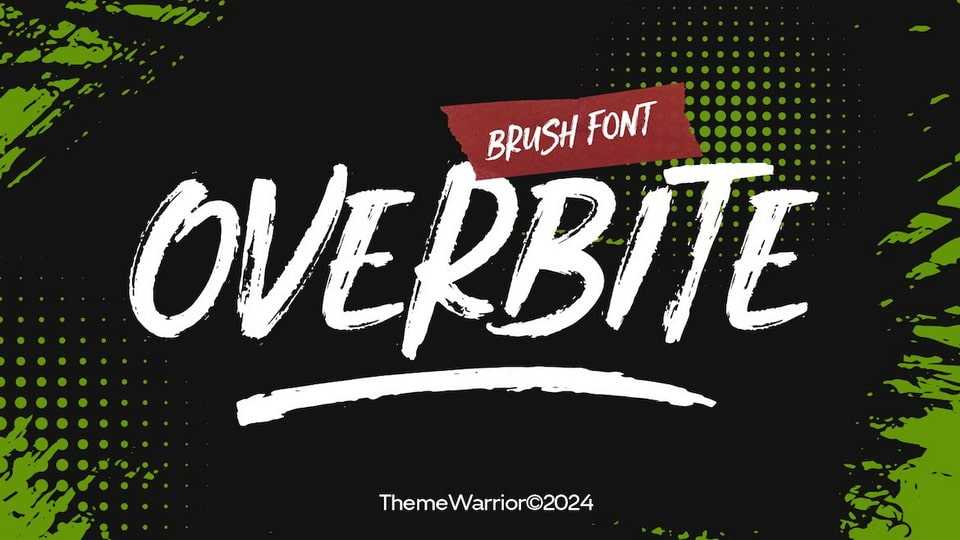
Download Overbite font, a bold, brush-style typeface that comes with rough strokes and fierce look, perfect for attention-grabbing posters and edgy logos.
Designer: ThemeWarrior